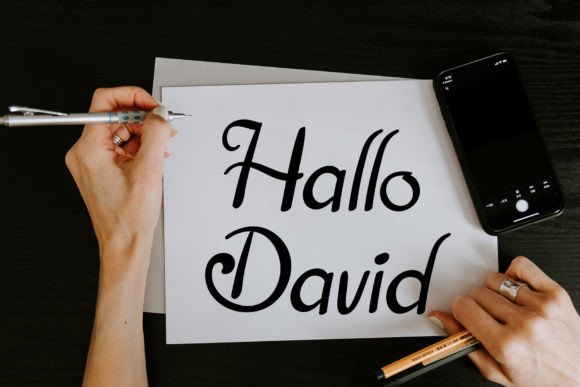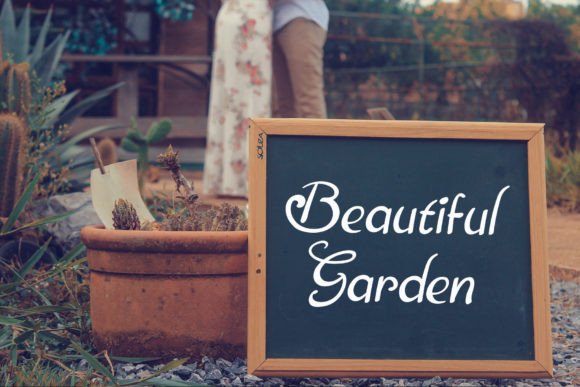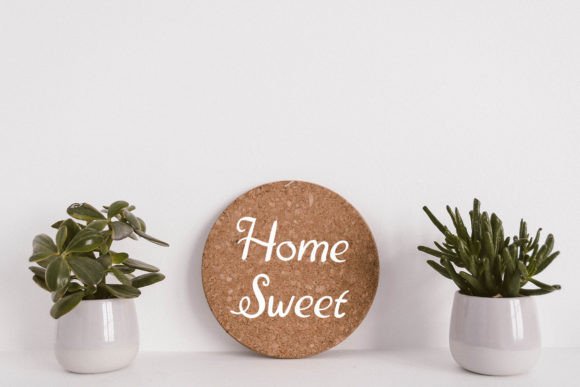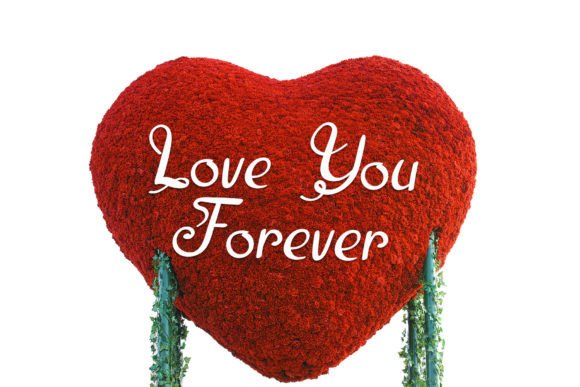
Sakti Font
✍️ About Sakti Font
Sakti is a unique and refined handwritten font that brings elegance and creativity together in one beautiful typeface. Designed with a natural, hand-crafted flow, it features a varied baseline that mimics the organic movement of real handwriting. Each character in the Sakti font was created with care, making it ideal for projects that need a personal, stylish, and authentic touch.
Whether you’re designing wedding invitations, greeting cards, business logos, or any artistic visual, Sakti gives your work a graceful and distinctive identity. Its fluid strokes and sophisticated lines offer a timeless aesthetic that stands out in both formal and casual settings.
🎨 Where to Use Sakti Font
Sakti shines in many types of creative projects. Thanks to its natural hand-drawn style, it easily adapts to various design needs while maintaining visual harmony. If you want your work to feel both polished and heartfelt, this font is your go-to.
Perfect for:
• Wedding Invitations & Stationery
• Thank You & Holiday Cards
• Elegant Logos & Business Branding
• Billboard & Banner Typography
• Luxury Packaging & Product Labels
• Personalized Social Media Graphics
• Editorial & Magazine Layouts
• Quotes, Signatures & Fashion Lookbooks
Its versatile charm makes it suitable for professional designers, creatives, and entrepreneurs alike.
✨ Key Features of Sakti
• Beautiful handwritten script with artistic curves
• Varied baseline for organic, flowing feel
• Uppercase and lowercase letters
• Standard punctuation and numerals
• Multilingual character support
• PUA encoded for easy access to all glyphs and alternates
Sakti is carefully optimized to ensure readability while preserving the visual flair of hand lettering.
💡 Why Choose Sakti?
If your project calls for warmth, elegance, and a custom-crafted aesthetic, Sakti is a smart and stylish choice. It brings personality to your work and connects with viewers through its authentic charm. Every character carries an artistic rhythm that makes your design come alive.
Unlike rigid or generic fonts, Sakti’s hand-drawn quality gives it a luxurious and organic feel—perfect for storytelling through design. Whether you’re preparing an upscale wedding invite or branding your passion project, Sakti helps you make a lasting impression.